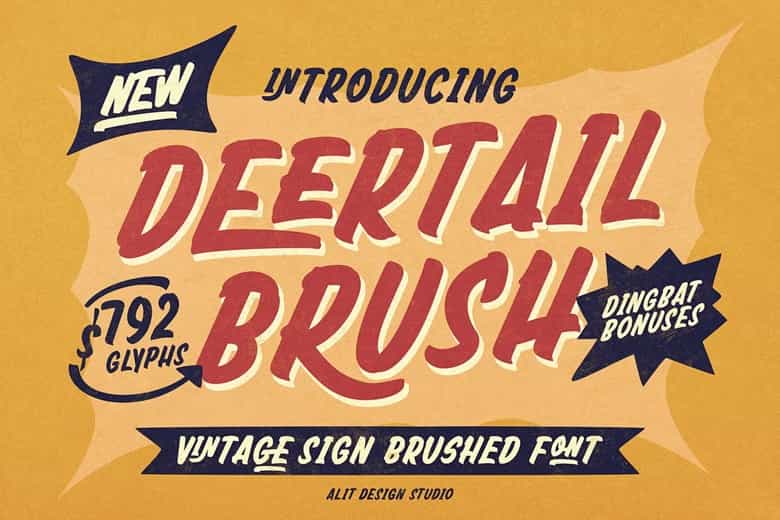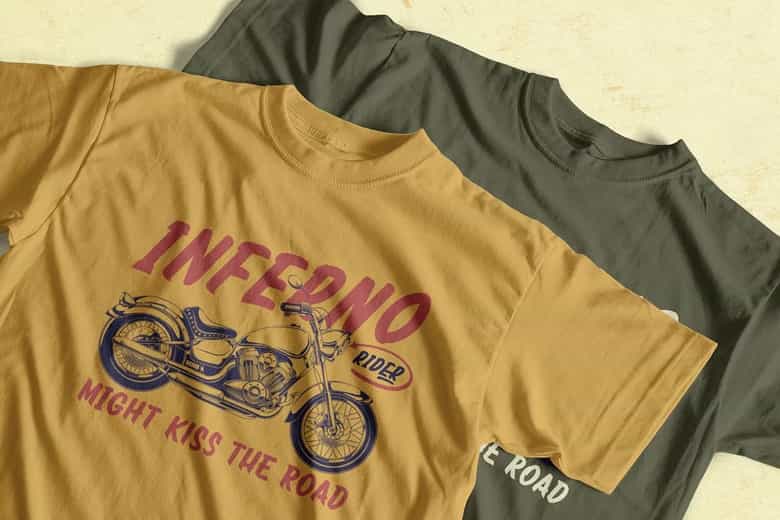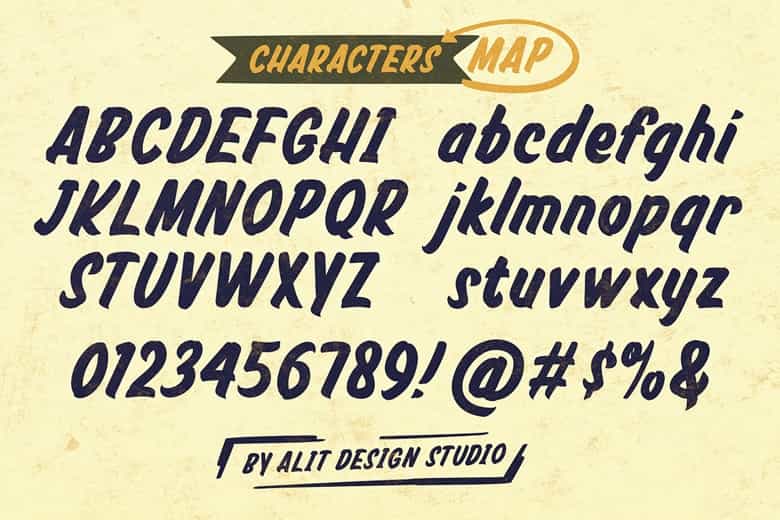
Introduce your projects to a kind of retro that still feels refreshing with the Deertail Brush Typeface.. This typeface embodies the essence of painting brushes as well as dynamic writing movement; therefore it would be appropriate for those works that are making an attempt to look very vintage.